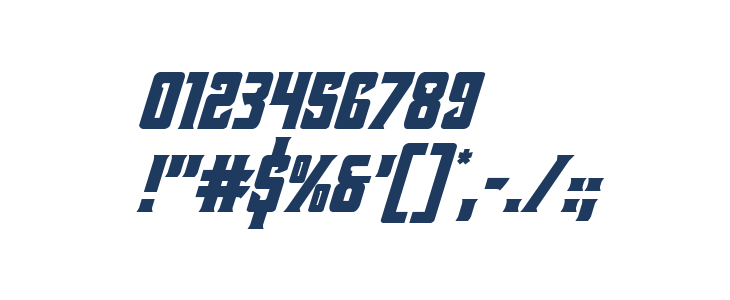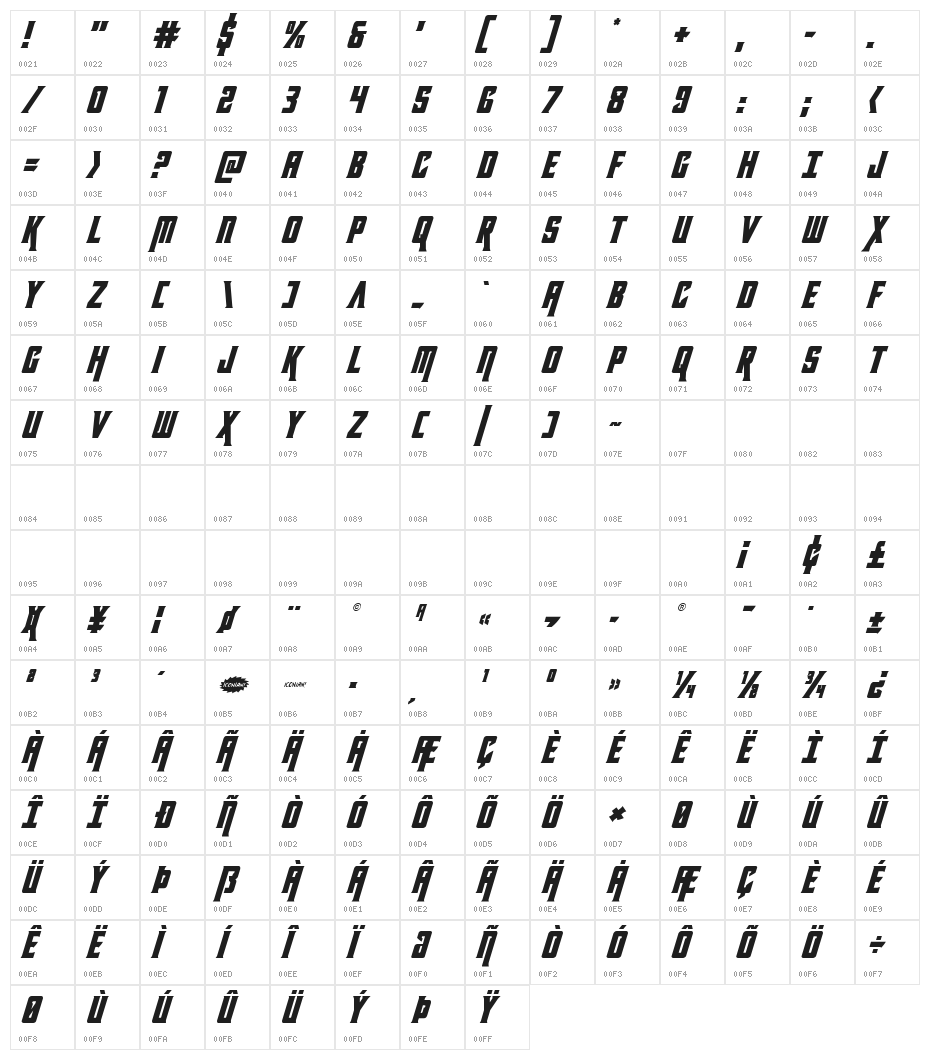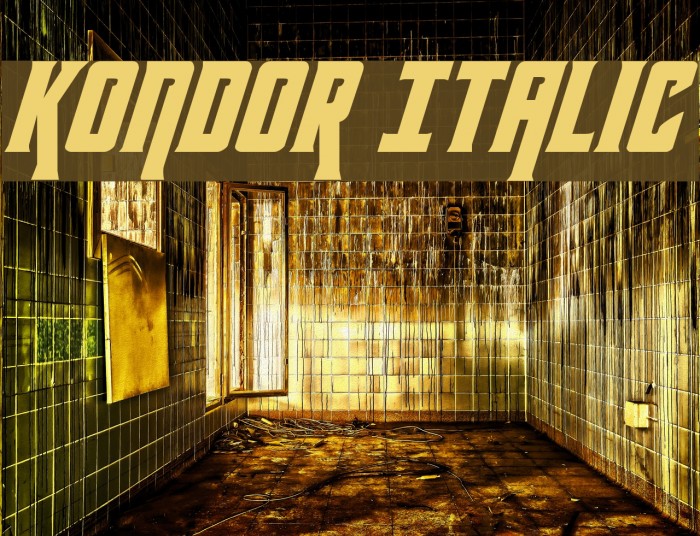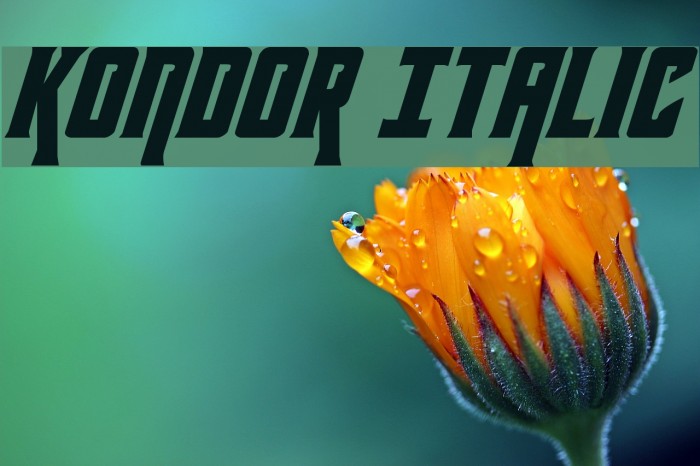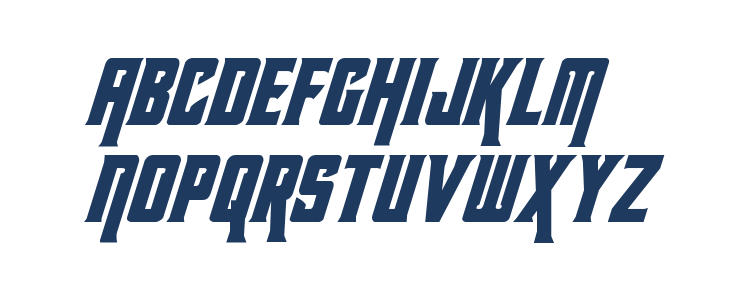
Kondor Italic Font
Kondor Italic Description
This font features a bold and dynamic design with a strong italic slant, giving it a sense of motion and energy. The characters are wide and angular, with sharp edges and a distinct geometric style. The uppercase letters are particularly striking, with a uniform height and consistent stroke weight that enhances readability. The numbers and special characters maintain the same bold aesthetic, making them suitable for impactful displays. The overall design is modern and assertive, ideal for projects that require a strong visual presence.
Proposed ProjectsIdeal for sports branding, action-themed posters, dynamic logos, and modern advertising campaigns.